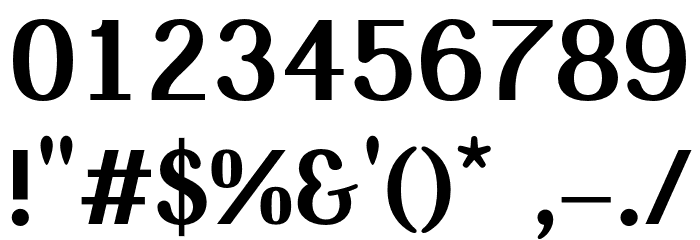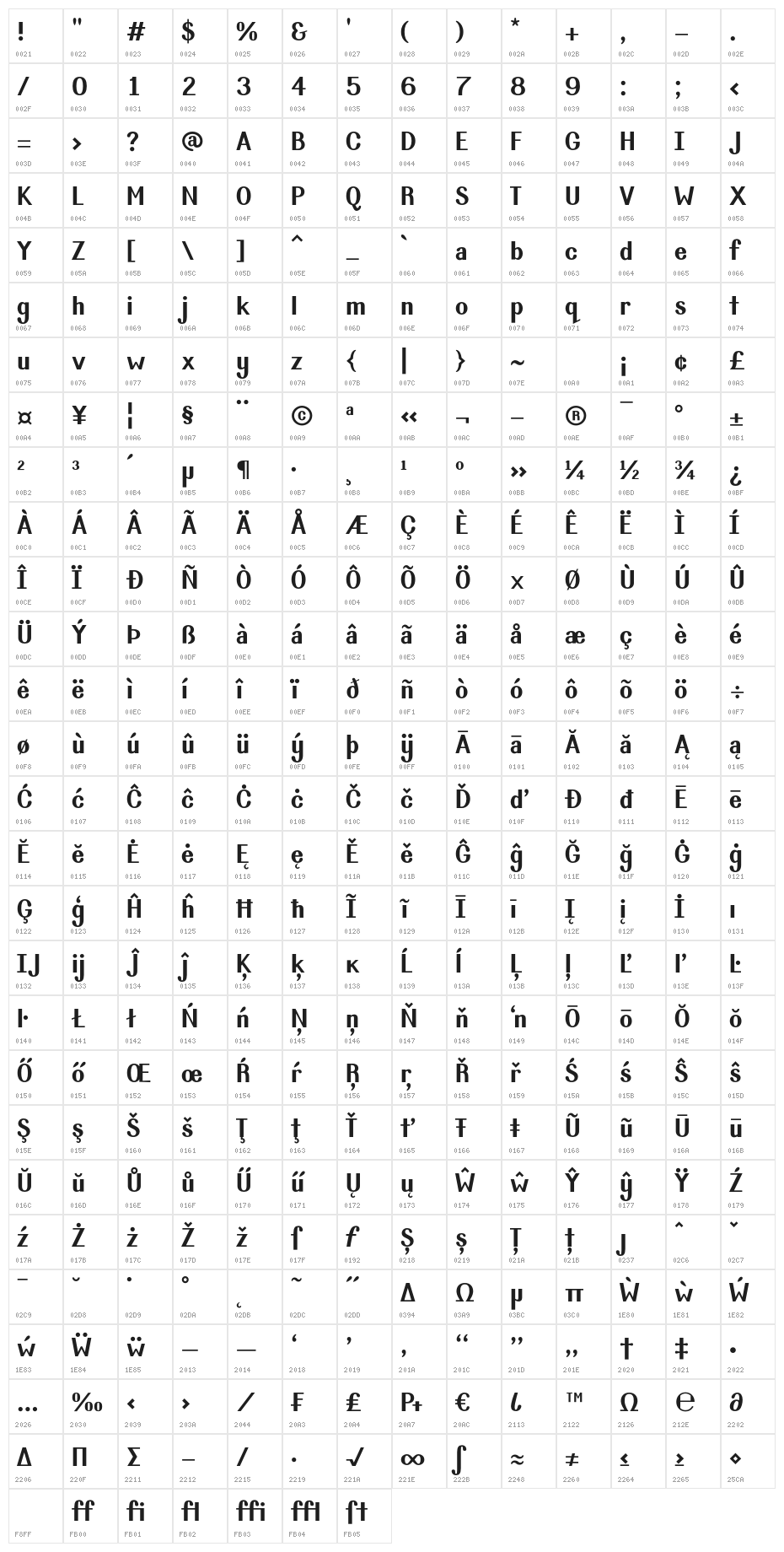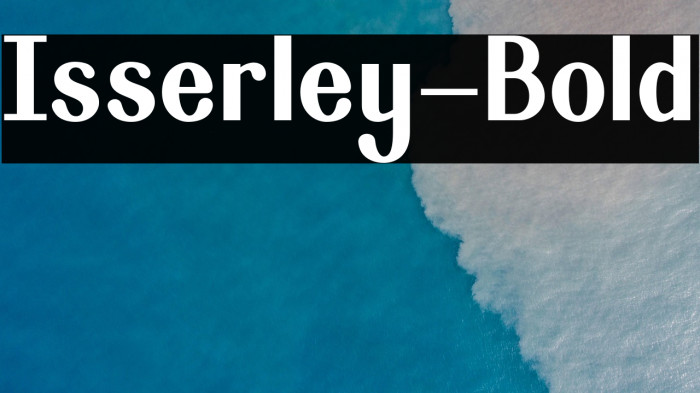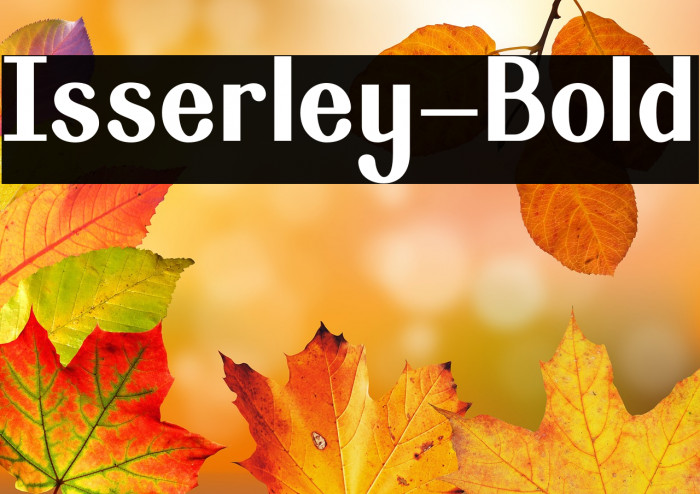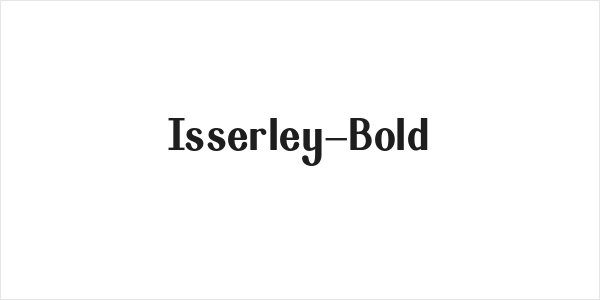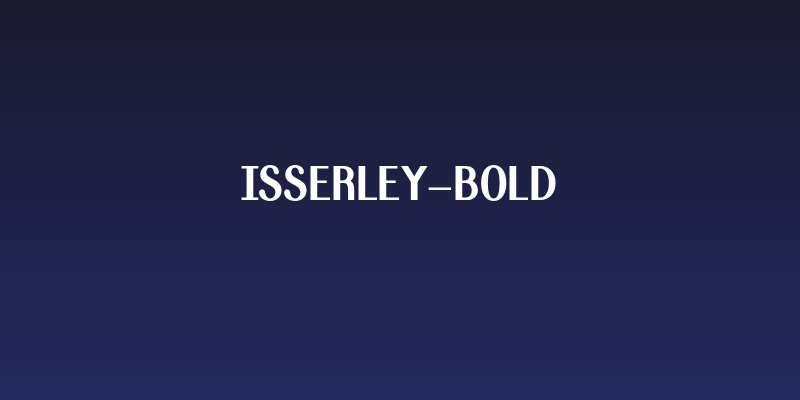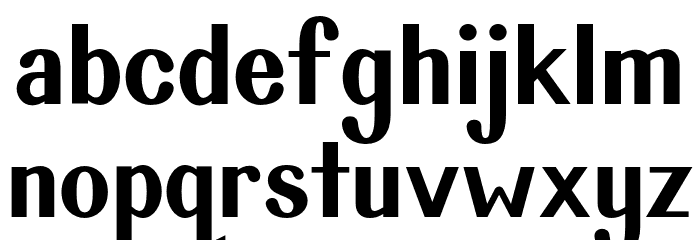
Isserley-Bold Font
Isserley-Bold Description
This font features a bold and robust design, characterized by thick strokes and a strong presence. The uppercase letters are tall and commanding, while the lowercase letters maintain a consistent weight, offering a harmonious balance. The numerals are clear and easily distinguishable, making them suitable for various applications. Special characters are well-defined, adding versatility to the font's usage. The overall style is modern with a hint of classic serif influence, making it suitable for both contemporary and traditional projects.